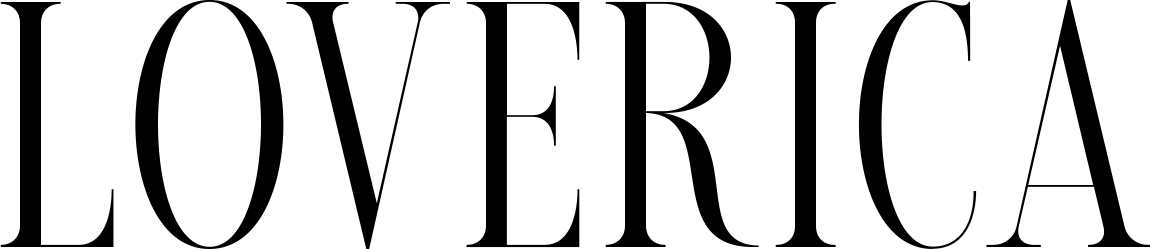
Loverica Font
Use Loverica for your text designs and draw your clients into the layout. This serif font comes with long and light letters. The appearance is already super elegant but to get a better result, you can add even some effec…
Use Loverica for your text designs and draw your clients into the layout. This serif font comes with long and light letters. The appearance is already super elegant but to get a better result, you can add even some effects. This luxury serif font fits business cards, invitation flyers, magazines, and so forth.